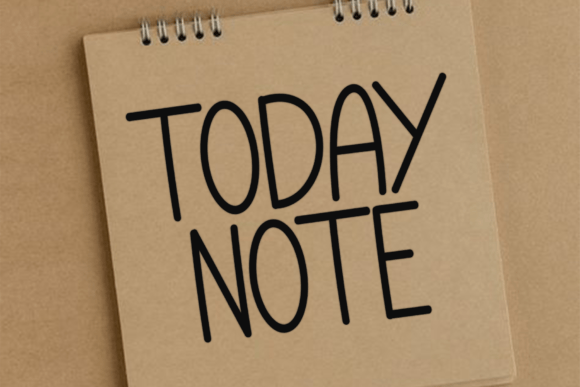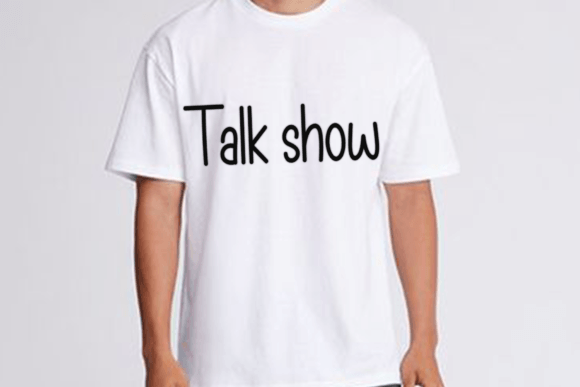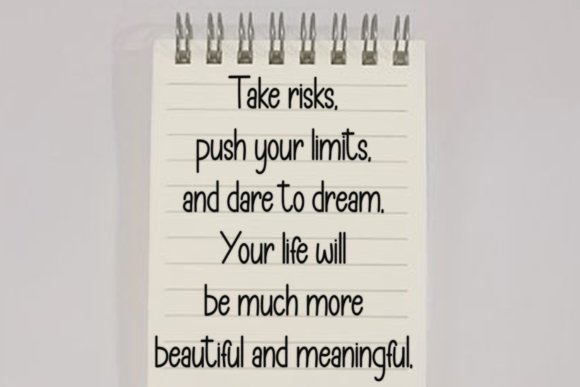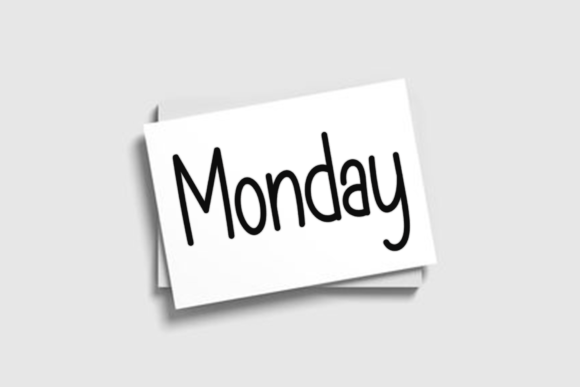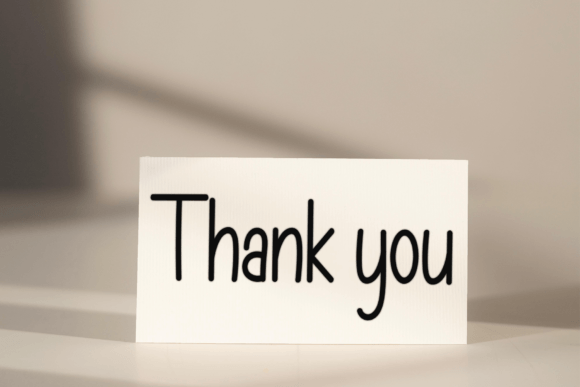
Introduction to Morning School Font
Have you ever stumbled upon a design that just makes your heart skip a beat? For designers, it’s those ‘aha’ moments that make all the late nights and hard work worth it. As I was working on a new project, I came across the Morning School Font, and I knew I had to share it with the world. This lovely handwritten font is a game-changer for any creative project, and I’m excited to dive into its unique features.
With its high-quality design and transparent background, the Morning School Font is a valuable resource for any designer looking to add a personal touch to their work. Whether you’re creating a logo, branding, or quotes, this font is sure to make your designs come alive with its beautiful and unique touch.
Key Features of Morning School Font
- High-quality design resource for creative projects
- Unique, hand-drawn style with a transparent background for seamless integration
- Designed with a high-resolution 300 DPI for crisp and clear display
- Perfect for use in educational materials, children’s books, and other creative projects
- Includes a comprehensive character set with over 200 glyphs
Honest Review: Morning School Font
I recently had the chance to work with the Morning School Font, and I have to say it’s been a refreshing experience. The font is a high-quality design resource that’s perfect for any creative project.
- ✨ The font’s transparent background makes it incredibly versatile and easy to use.
- ✨ The Morning School Font comes with a wide range of styles and weights, giving you plenty of options for your design.
That being said, there are a few limitations:
- ⚠️ The font may not be suitable for very large-scale designs, as it can start to look a bit pixelated.
- ⚠️ Some of the styles and weights can be a bit inconsistent in terms of quality.
Overall, I’d say the Morning School Font is a solid choice for designers. It’s easy to use, looks great, and is free to boot. Just be aware of its limitations, and you’ll be golden.
The Morning School Font is a high-quality design resource ideal for creative projects requiring a playful, vintage aesthetic. Its transparent background allows for seamless integration with various backgrounds.
Tips for Getting the Most Out of Morning School Font
Experiment with different font sizes, colors, and combinations to achieve a unique look. Use the font in conjunction with other design elements to create visually appealing graphics.
The Morning School Font is suitable for a wide range of creative projects, including:
- Invitations and event graphics
- Personalized stationery and greeting cards
- Children’s educational materials and worksheets
- Graphic design projects and branding materials